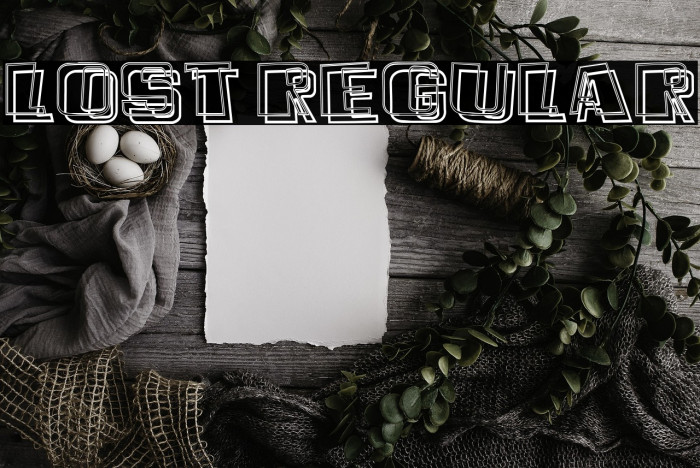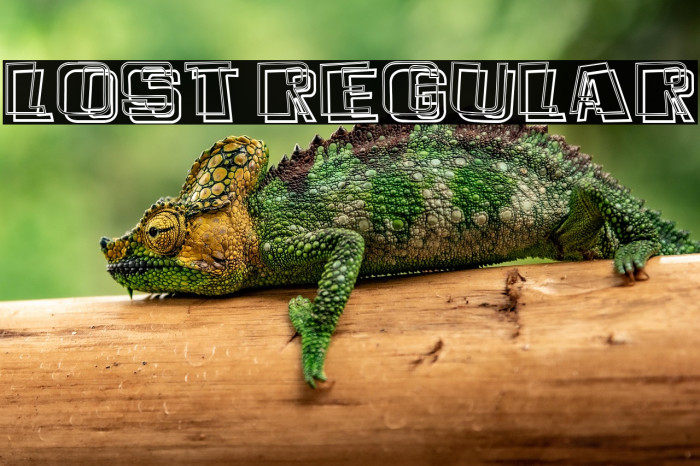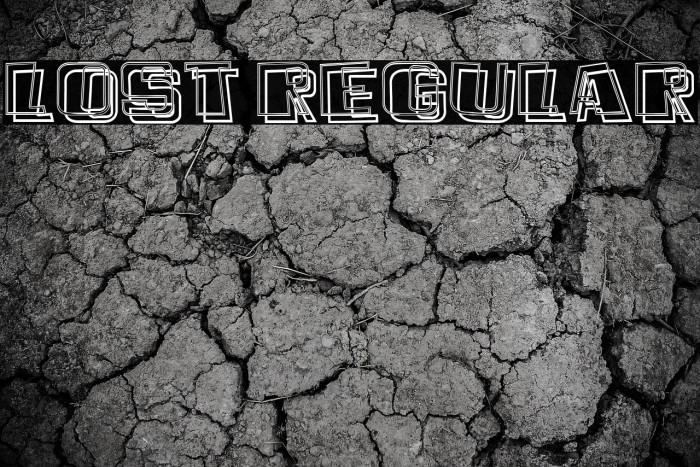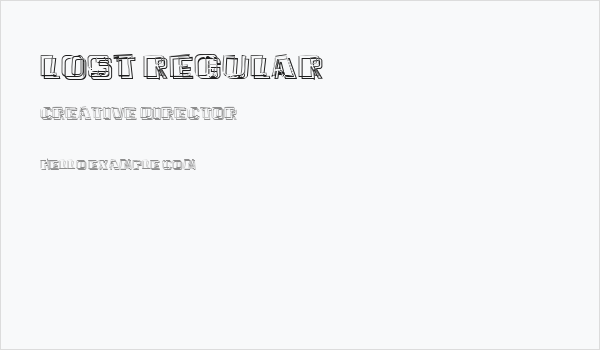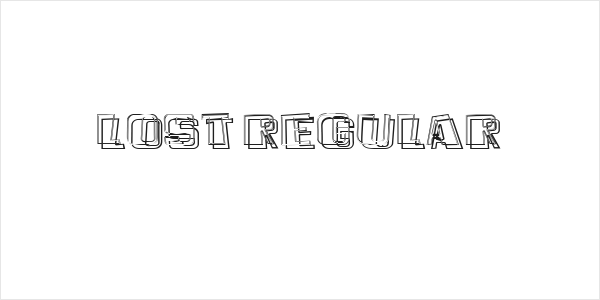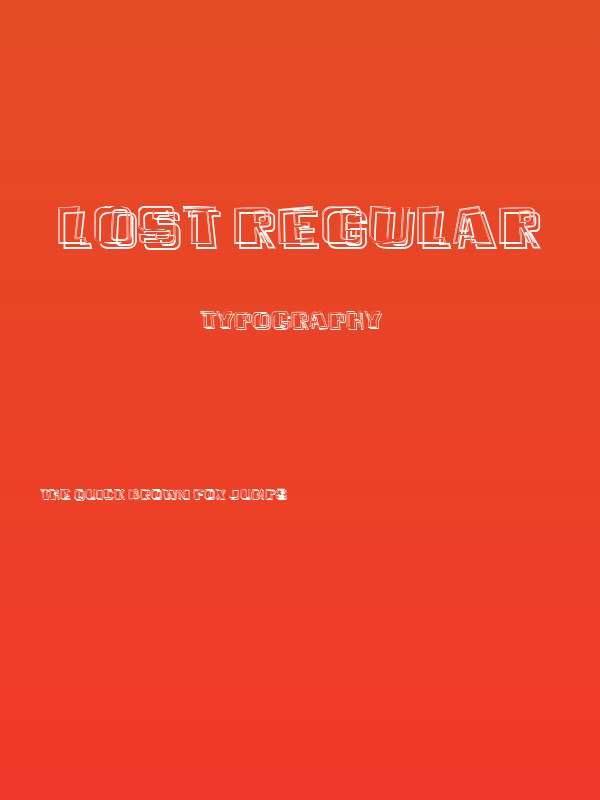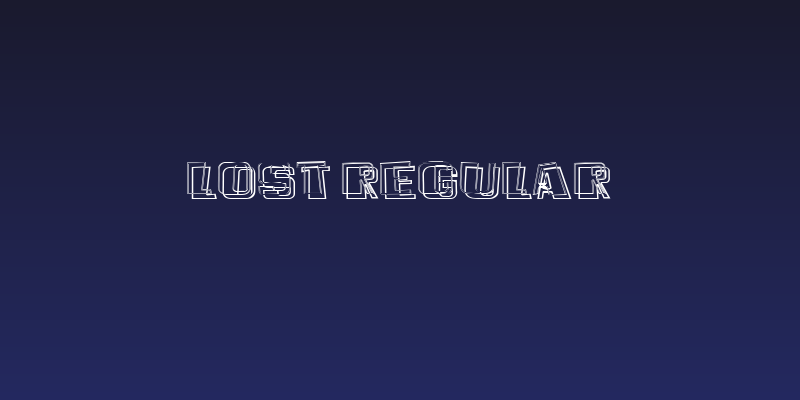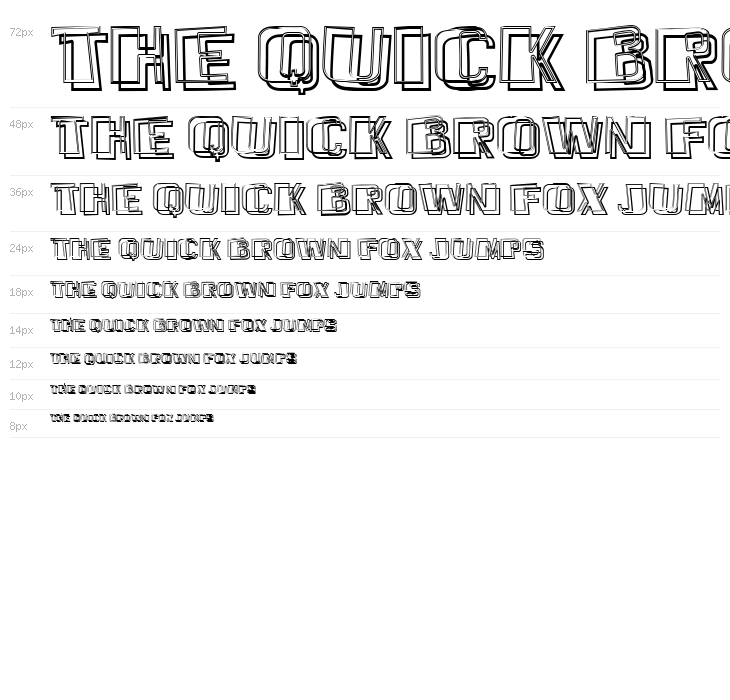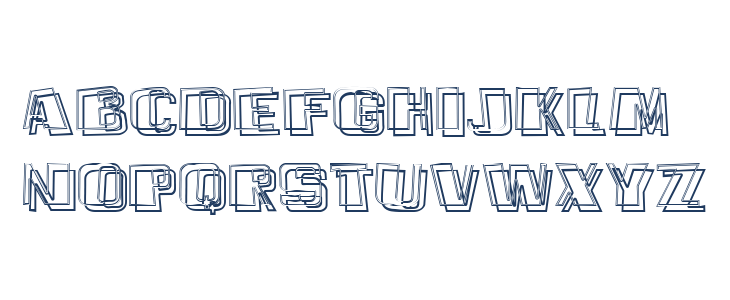
Lost Regular Font
Lost Regular Description
This font features a bold and dynamic design with a three-dimensional, layered appearance. The letters are constructed with overlapping outlines, creating a sense of depth and movement. The style is reminiscent of graffiti or urban art, with a playful and energetic vibe. The uppercase letters are consistent in height and width, providing a uniform look while maintaining the intricate detailing within each character. This font is eye-catching and would stand out in any design project requiring a modern and edgy aesthetic.
| Proposed Projects | Ideal for street art designs, music album covers, event posters, and any project needing a modern, edgy look. |